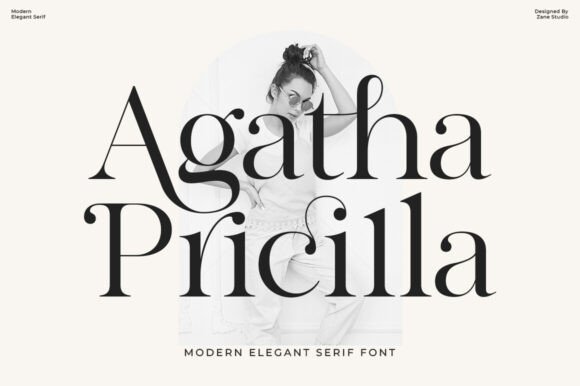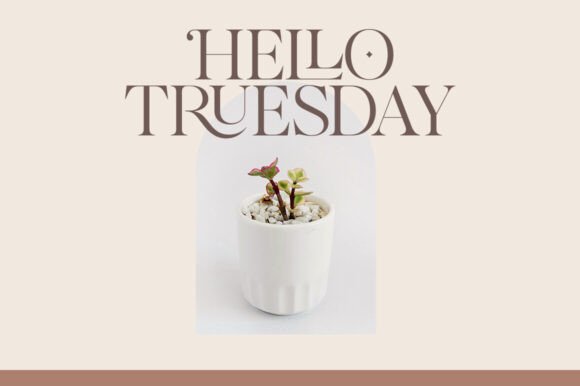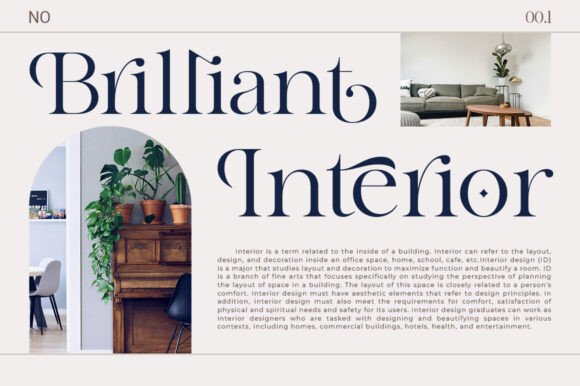
Agatha Pricilla Font: Elegant Serif for Modern Branding & Logo Design
About the Agatha Pricilla Font
Let us introduce you to Agatha Pricilla Font, where timeless design meets modern craftsmanship. Introducing the Agatha Pricilla Font, a modern, feminine, beautiful, and classy collection of characters that gives a unique look to all your logo or brand design needs.
The Agatha Pricilla font is a mix of beautiful and classy nuances, which has a wide range of uses, but is mainly intended for logos, perfumes, fashion magazines, or book covers to display titles, brands, product packaging, and invitations. Not only will you find many decorative characters, but also a number of unique alternate characters that will make you really love this font.
Agatha Pricilla Font Usage Examples
Agatha Pricilla Font Example